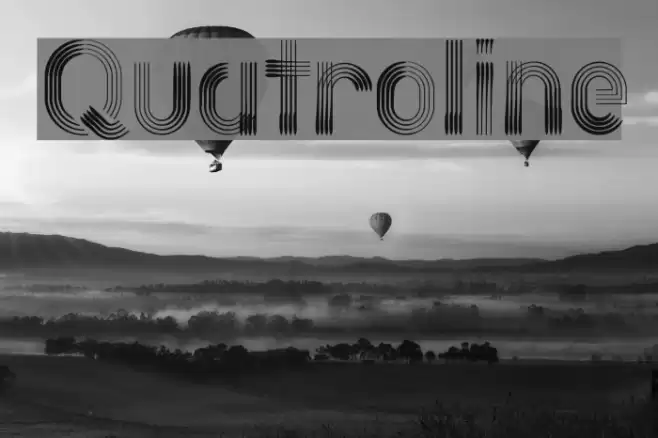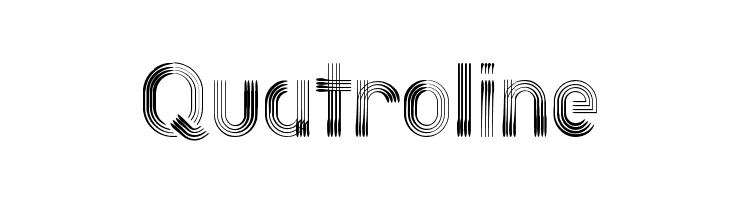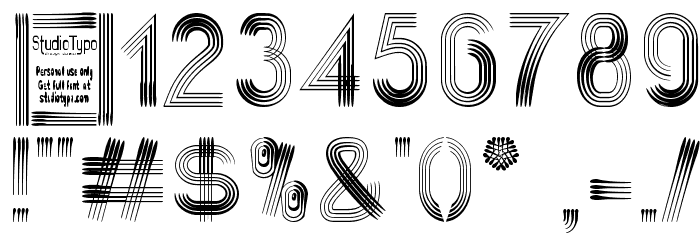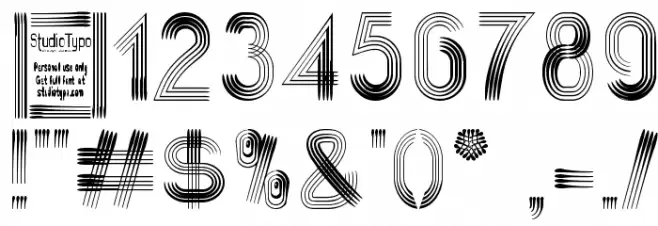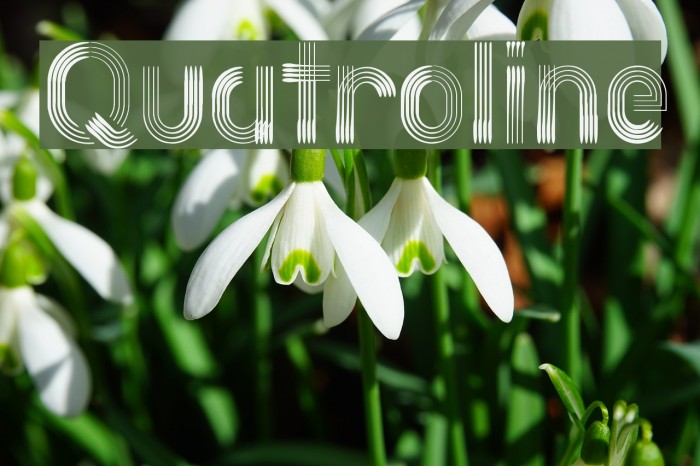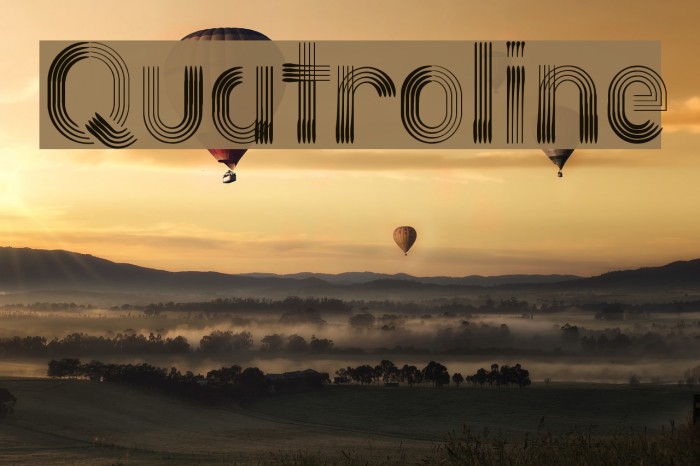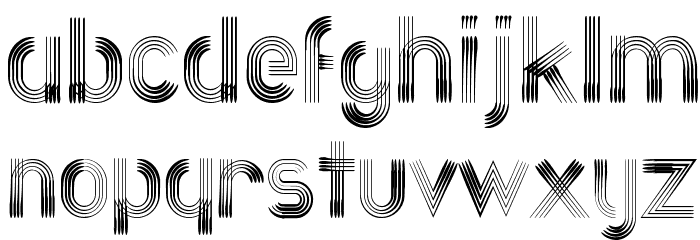
Quatroline Font
Quatroline Description
This font features a unique, multi-line design that gives each character a sense of depth and movement. The lines are evenly spaced, creating a harmonious and rhythmic pattern across the alphabet. The uppercase and lowercase letters maintain a consistent style, with the lowercase offering a slightly more rounded appearance. Numbers and special characters follow the same multi-line aesthetic, ensuring a cohesive look throughout. The font's modern and artistic flair makes it stand out, offering a visually engaging experience.
A modern, multi-line font with a dynamic and artistic style from Fancy fonts.
- Font: Quatroline